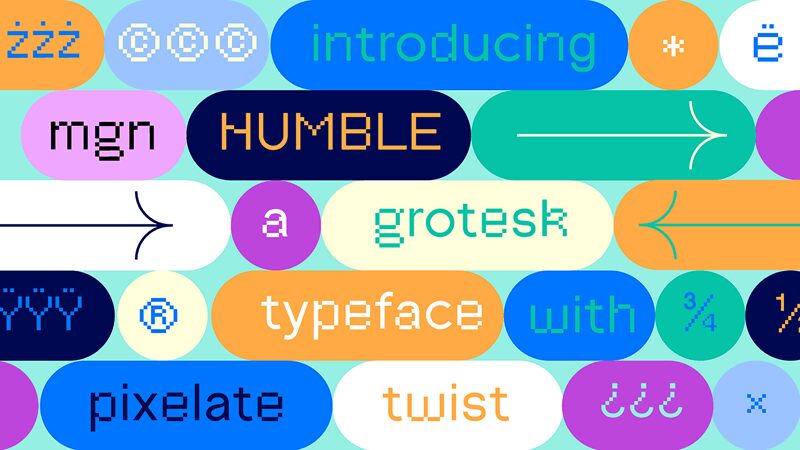
MGN Humble
Humble, like the popular song, is a modern and stylish type font. MGN Humble is a bitmap font that is pixelated and slightly rounded. It includes the lowercase and uppercase letters of the alphabet, the digits 0-9, punctuation marks, symbols, and some ligatures.
With an approachable design, this free font offers a wide range of applications that extend to posters and brochures, greeting cards, wedding invitations, quotes, and logos.
The possibilities are limitless with this font which you can use in any project that demands a modern, stylish, and eye-catching design.